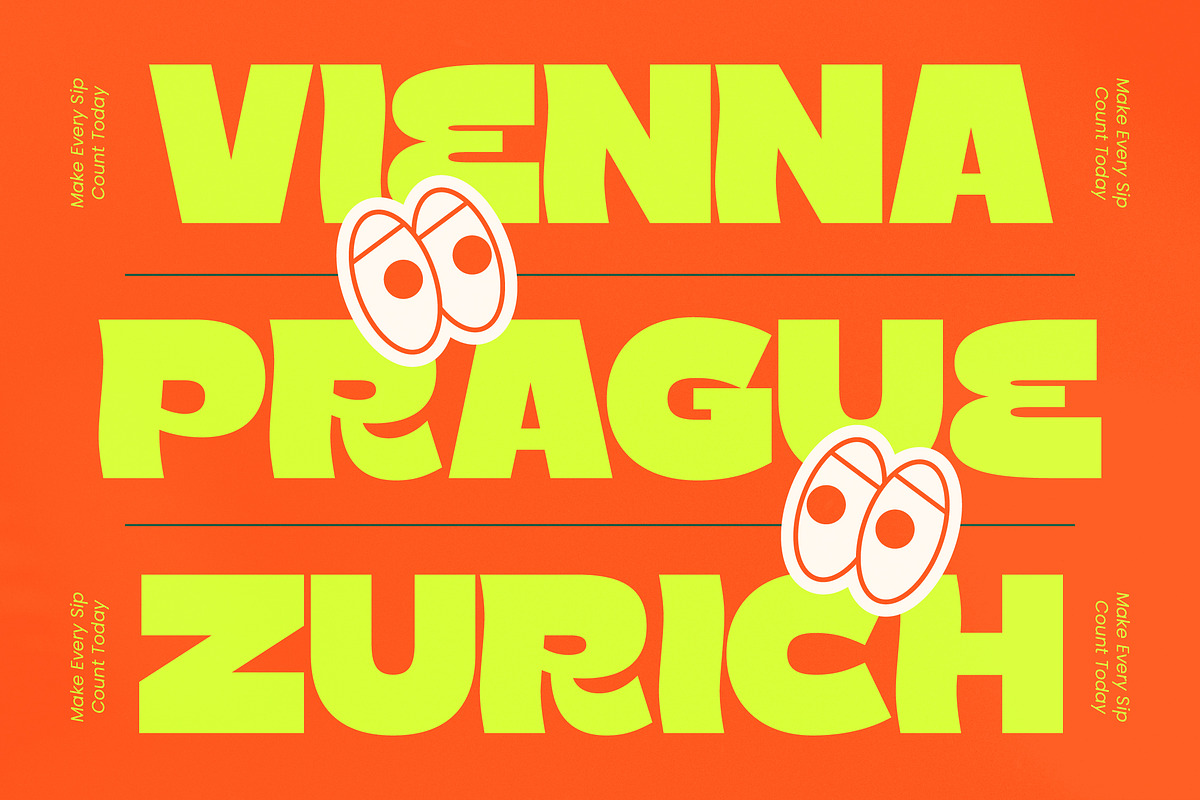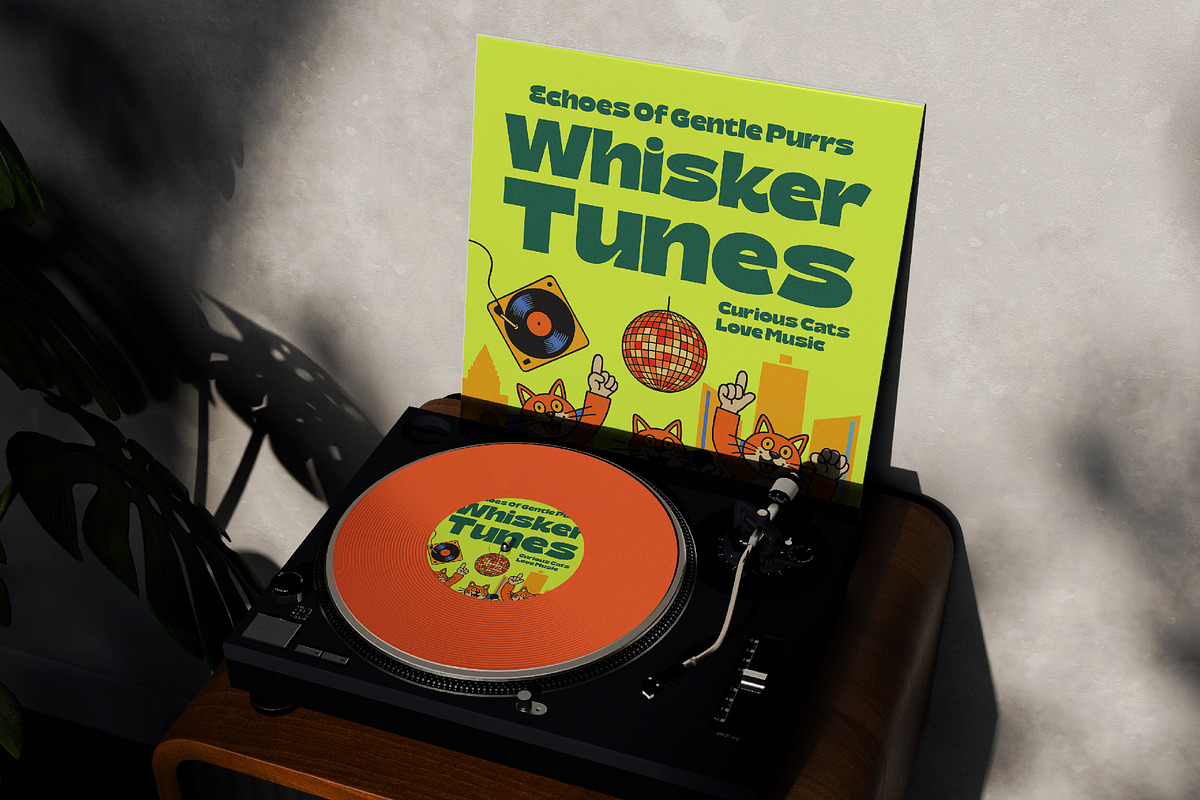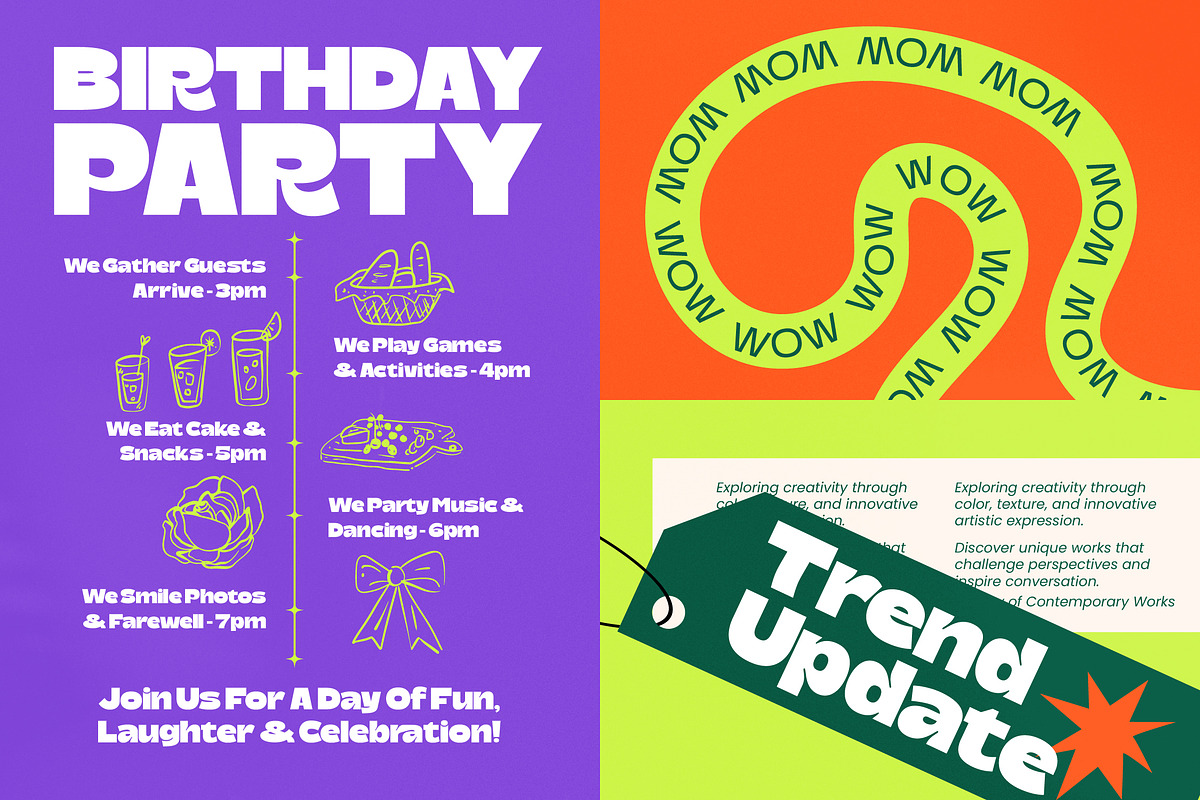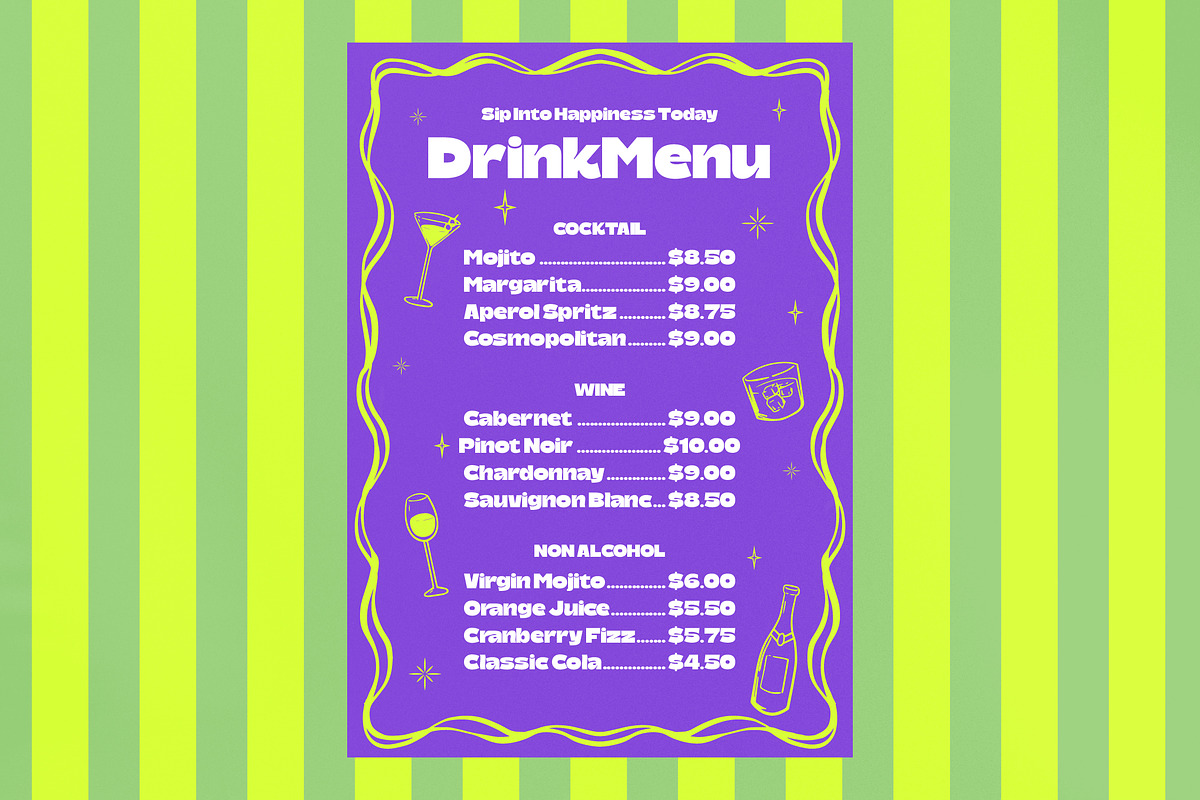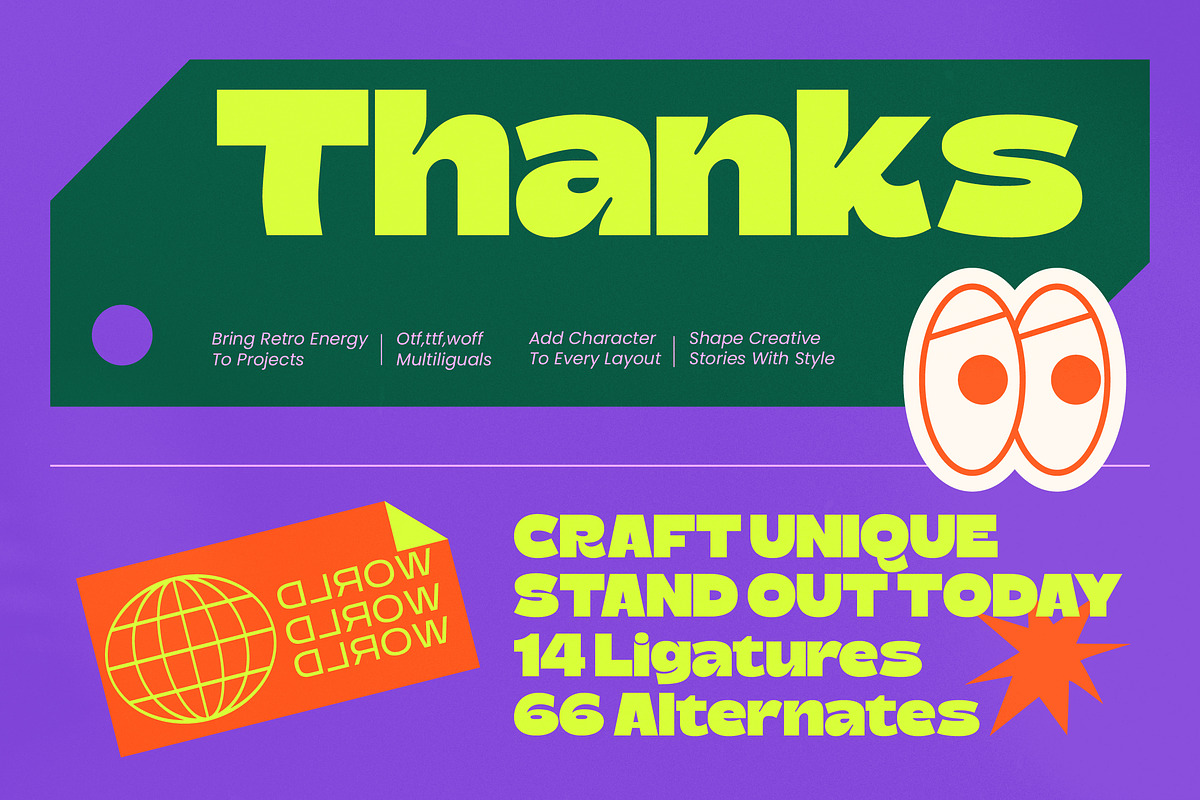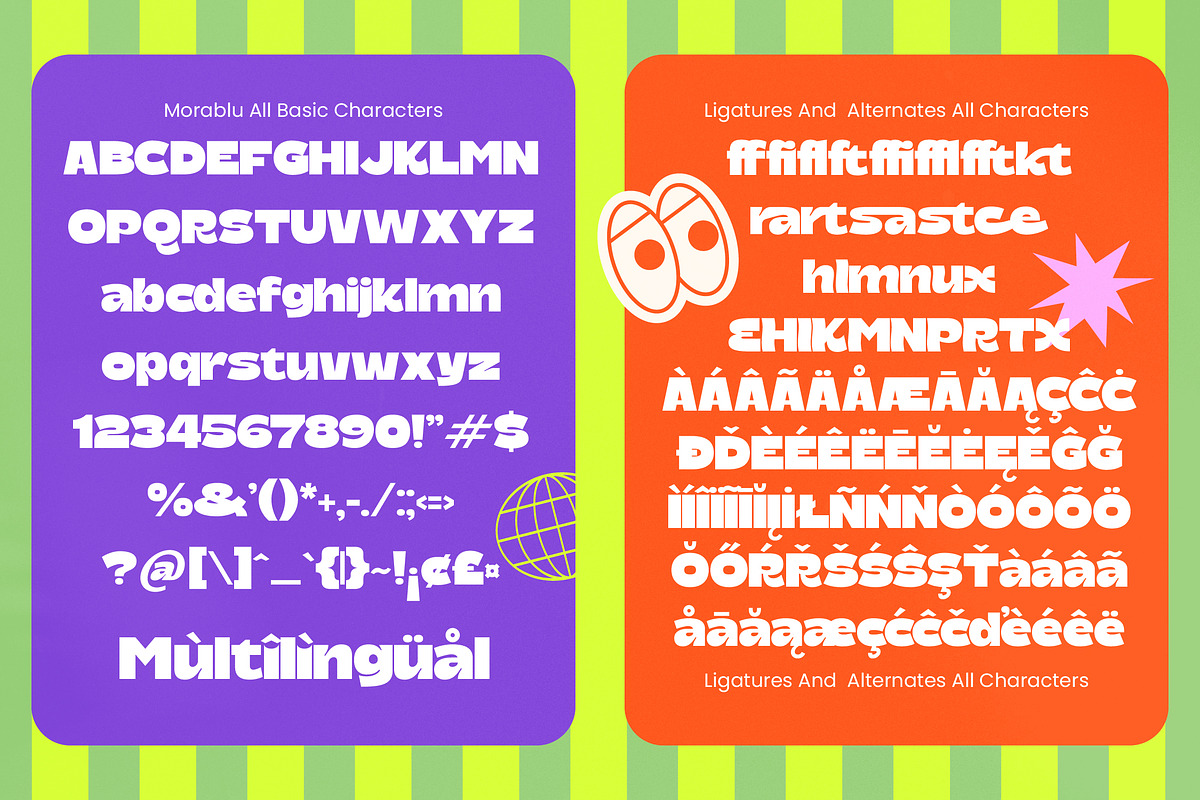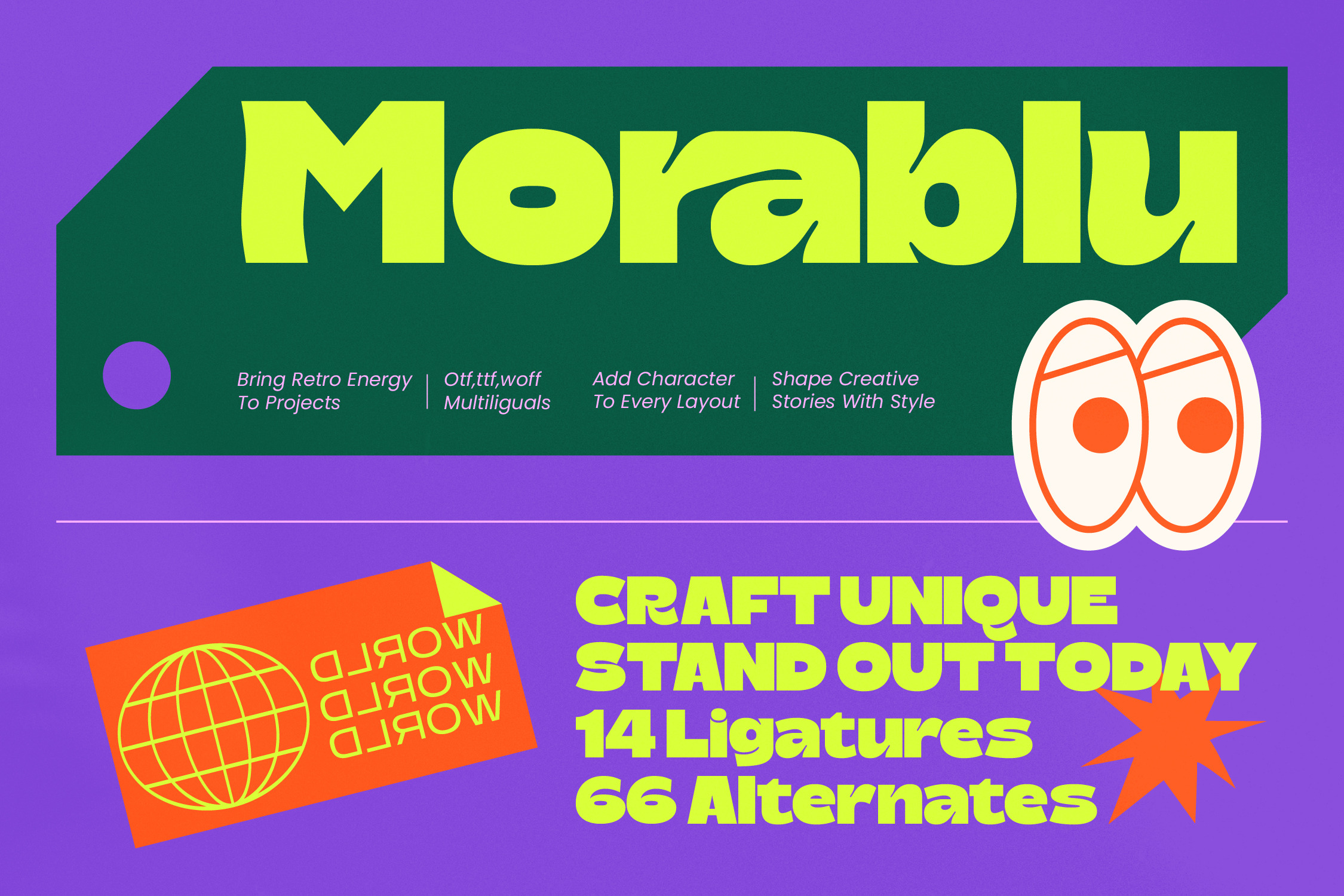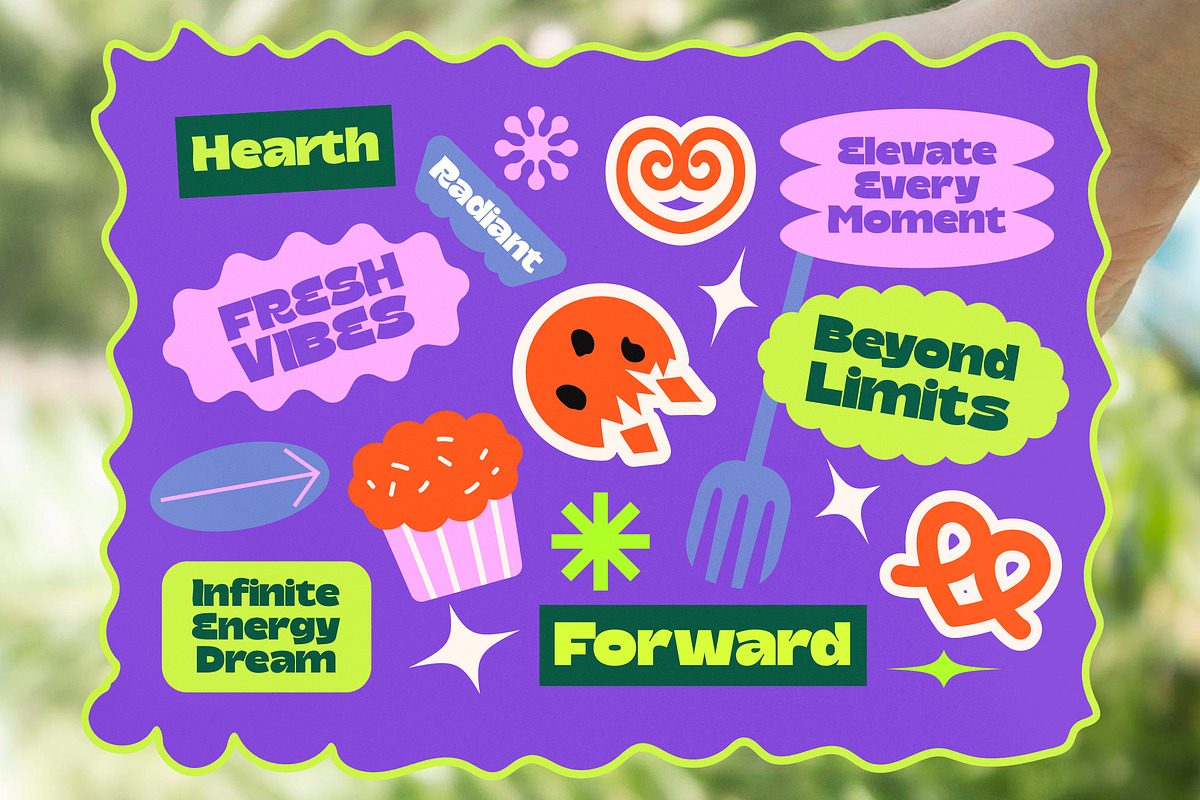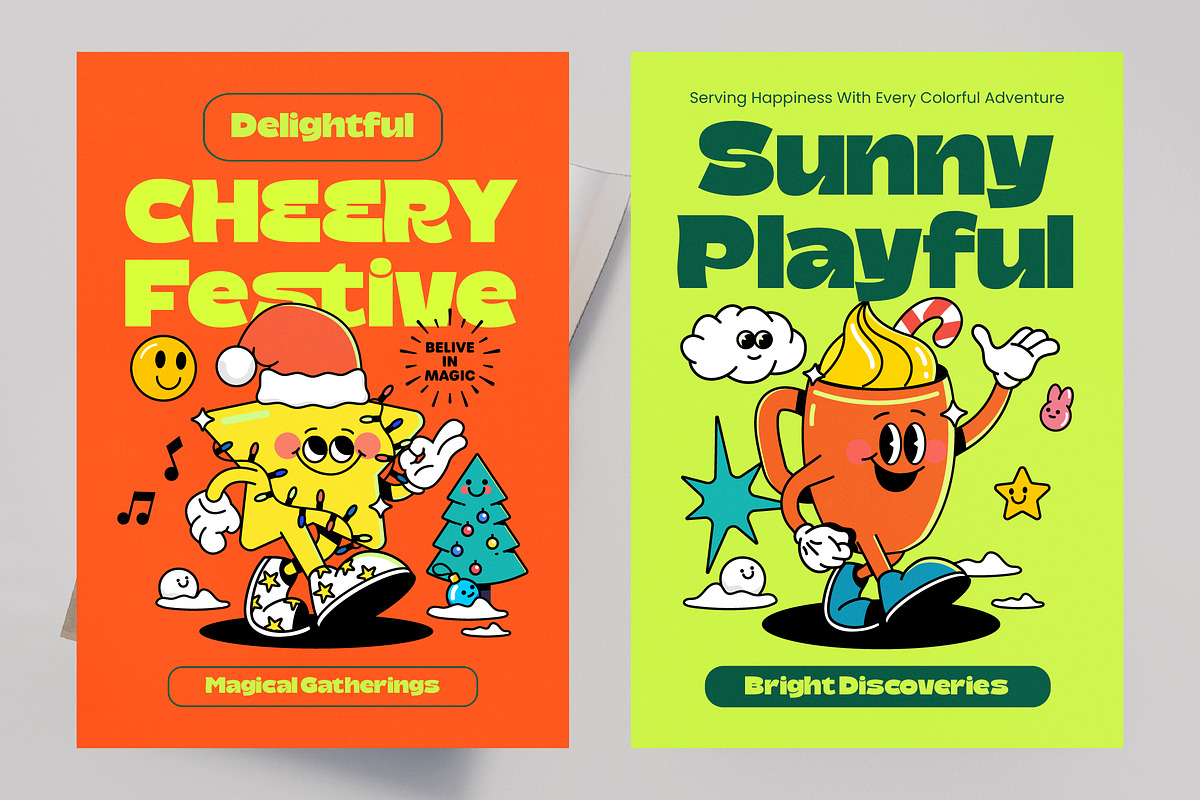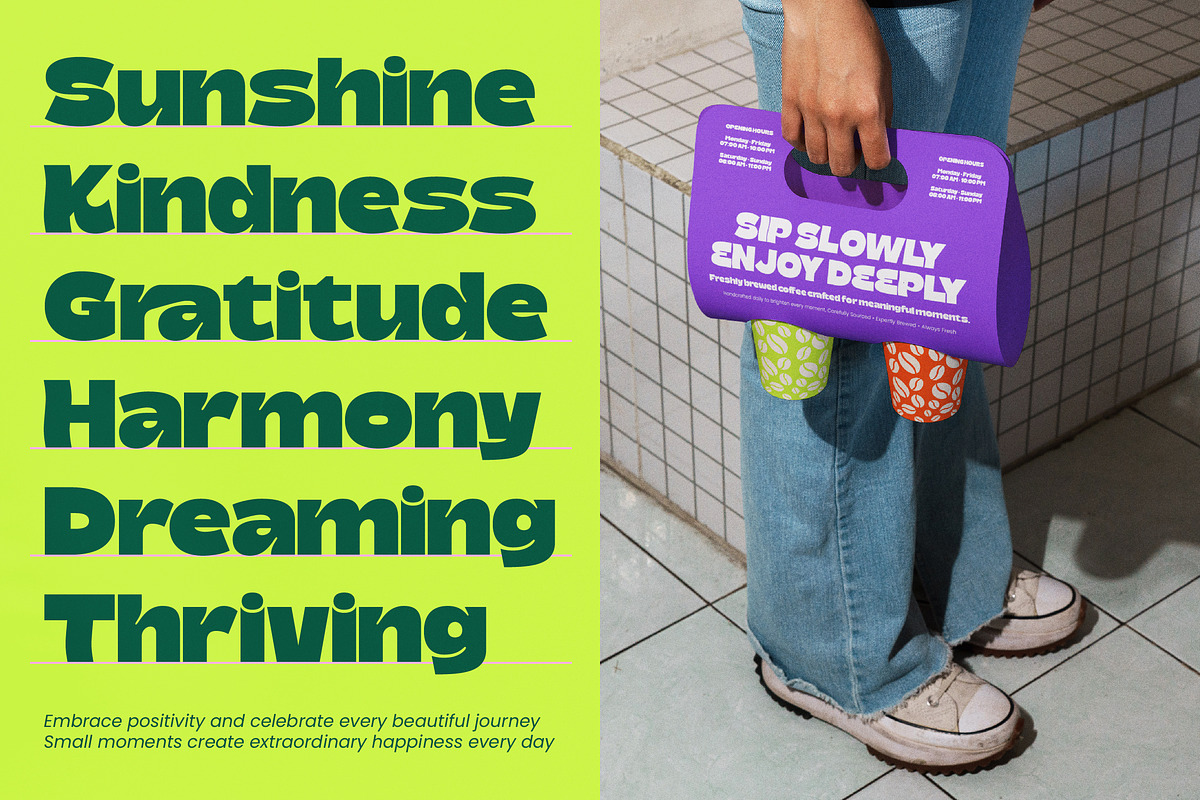
Morablu Groovy Display Font
Morablu – Groovy Display Font , Elevate your creative vision with a typeface that demands attention and defines a new era of style. Morablu – Groovy Display Font captures the essence of retro-modern design, blending bold, expressive letterforms with a dynamic personality that stands out in any composition. Its high-impact weight and fluid curves make it a powerhouse for designers seeking to inject a vibrant energy and authentic character into their visual storytelling.
Unlocking global potential has never been easier for designers looking to expand their reach across borders. With its extensive multilingual support, Morablu – Groovy Display Font adapts seamlessly across global markets, making it incredibly versatile for international projects. By incorporating over 66 alternates and 14 custom ligatures, this font provides the creative flexibility necessary to build truly one-of-a-kind typographic systems for a diverse range of languages and cultures.
Designed for maximum impact, this typeface is the ultimate tool for brands that refuse to blend in. Morablu – Groovy Display Font is perfect for luxury branding, packaging design, and cutting-edge editorial layouts that require a premium feel. Beyond high-end aesthetics, it is also highly effective for social media graphics, music festival posters, and streetwear apparel, providing a bold headline solution that commands the viewer's gaze instantly.